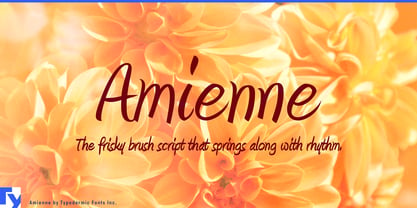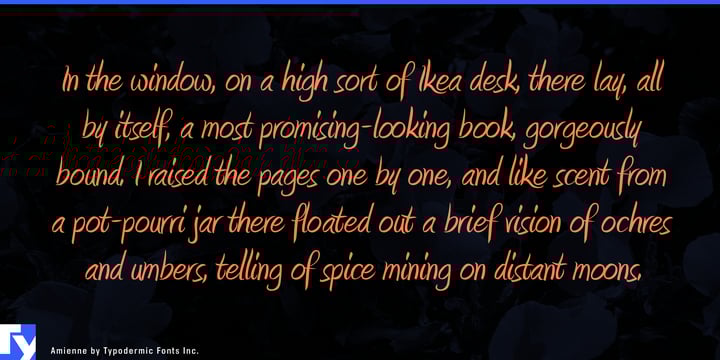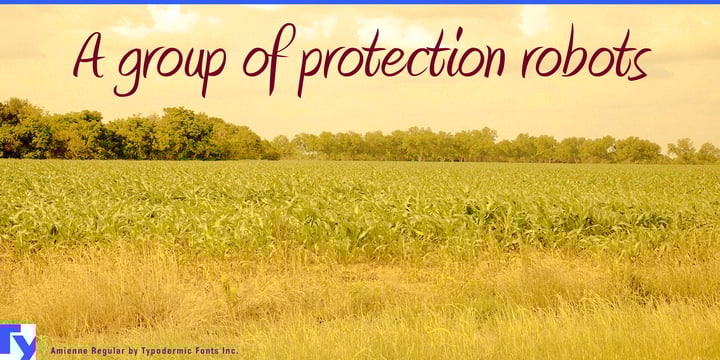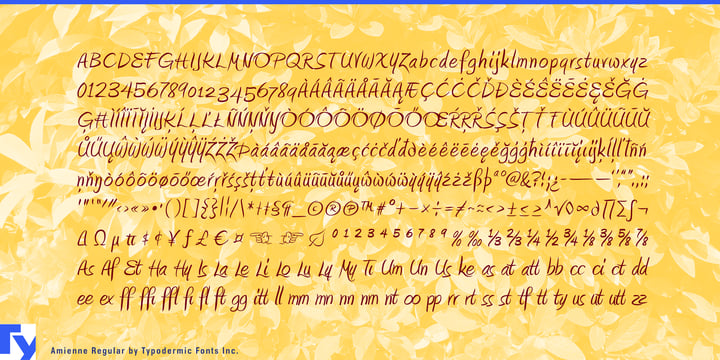
Amienne
by Typodermic
About Amienne Font Family
Looking for a typeface that’s full of life and energy? Look no further than Amienne! This charmingly informal brush script typeface is perfect for all your creative projects. With a nimble rhythm that moves gracefully across the page, Amienne is sure to capture attention and add a touch of whimsy to any design.
But that’s not all—Amienne also features ligatures, which means that certain letter combinations will be replaced with custom glyphs to create a more natural-looking brush flow. This gives your text a unique and organic feel that’s perfect for everything from invitations to packaging design.
And with both Regular and Bold styles available, you can choose the perfect weight to suit your project. Whether you’re creating a bold headline or a delicate script, Amienne has you covered.
Designers: Ray Larabie
Publisher: Typodermic
Foundry: Typodermic